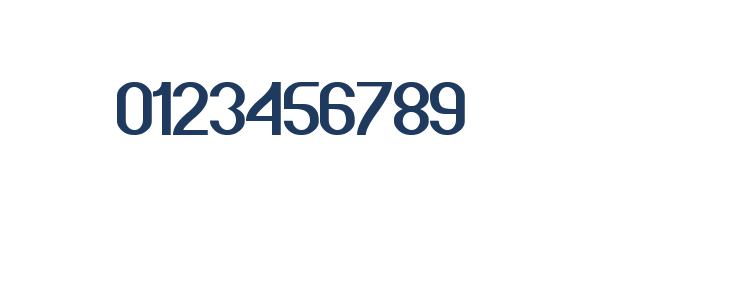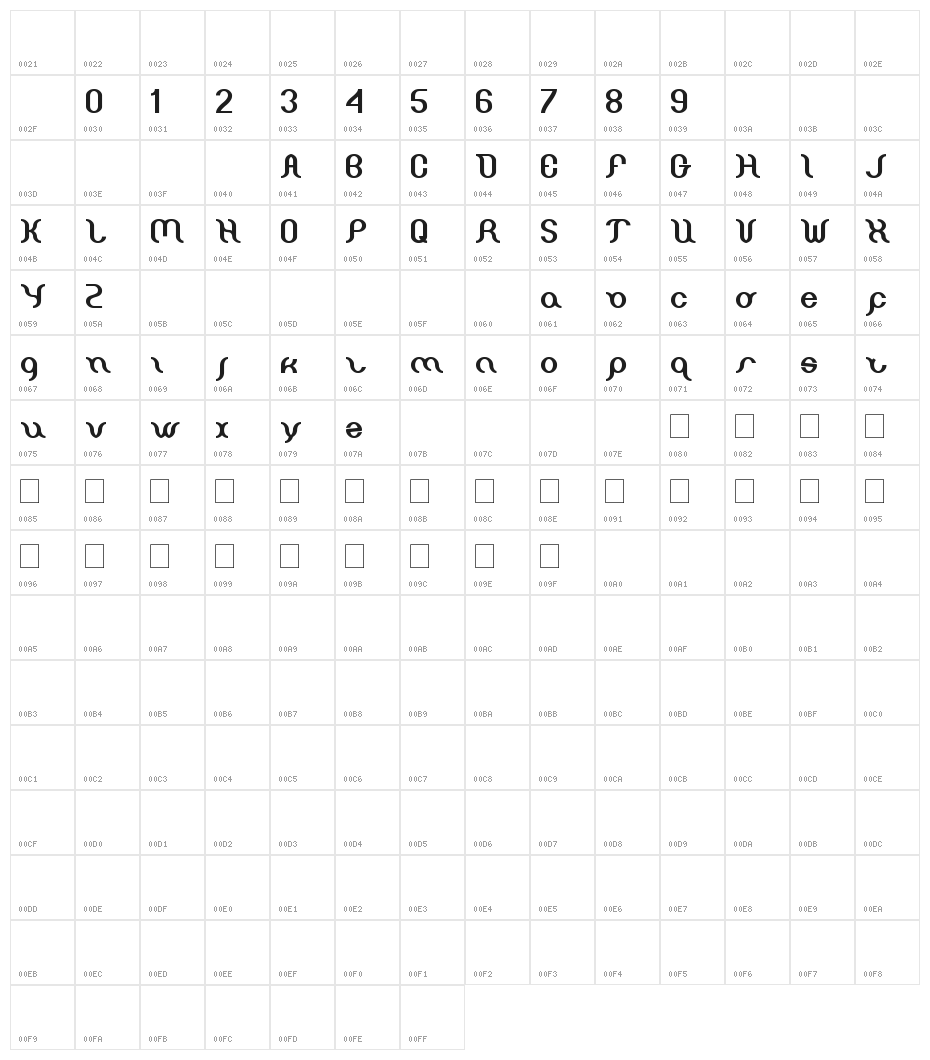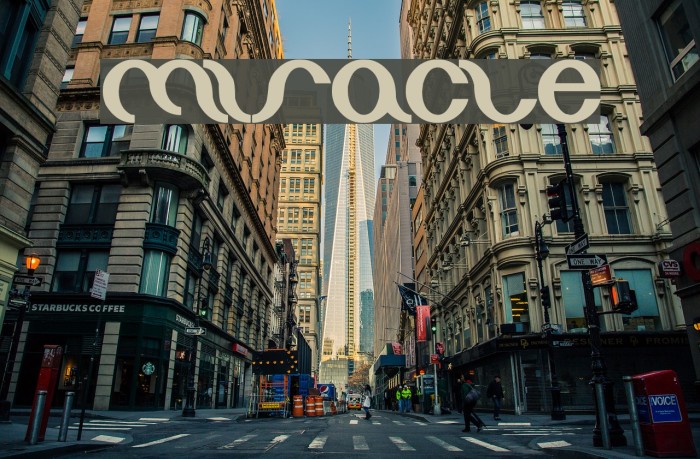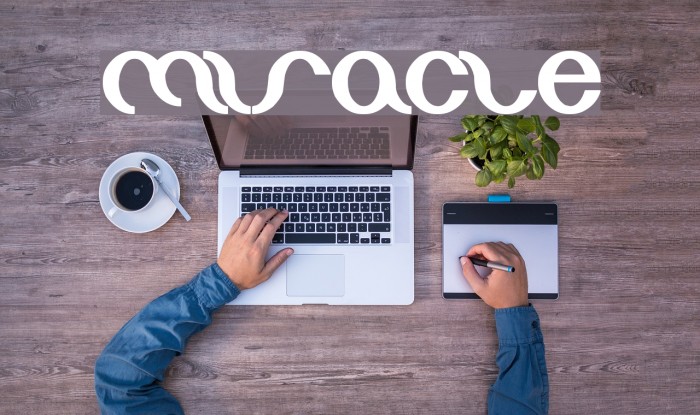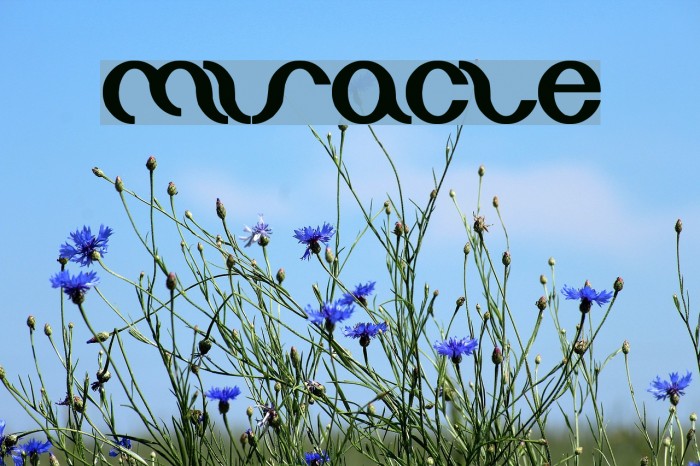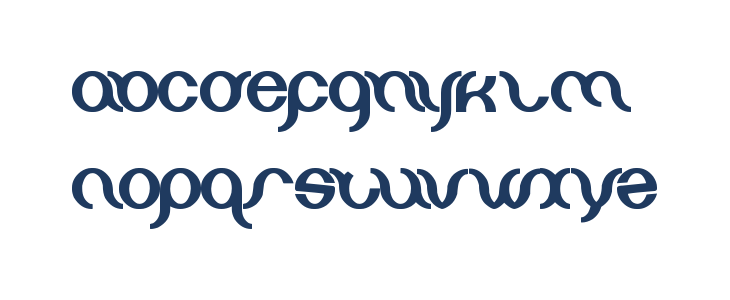
miracle Font
miracle Description
This font features a unique and modern design with a decorative flair. The characters are bold and have a distinct style where each letter is crafted with a combination of curves and straight lines, creating a sense of movement and fluidity. The uppercase and lowercase letters maintain a consistent style, with the lowercase letters mirroring the uppercase in a smaller form. The numbers are bold and clear, matching the overall aesthetic of the alphabet. The special characters are designed to complement the letters and numbers, maintaining the same bold and decorative style. This font is ideal for projects that require a modern and eye-catching look.
| Proposed Projects | Ideal for branding, headlines, posters, and creative design projects. |